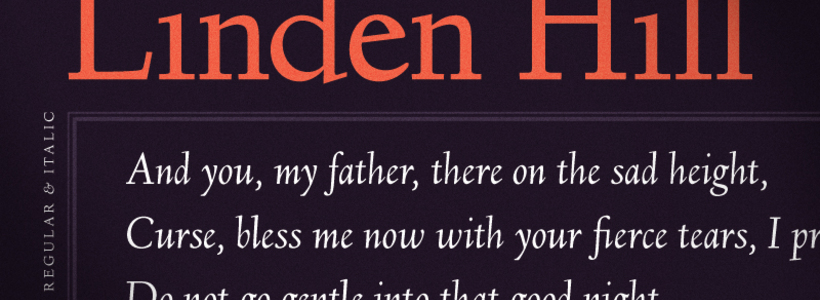
Crud Factory [Barry Schwartz]
Barry Schwartz (b. 1961) is a scientist who lives in St. Paul, MN. He grew up mostly in Kendall Park, NJ, and studied electrical engineering from 1984 until 1990 at Rutgers. He is a fervent and exemplary supporter of the idea of Open Source fonts and software. He runs Crud Factory. His fonts:
• BonvenoCF-Light (2006). A geometric OpenType format typeface for Latin scripts, having all the letters for Esperanto.
• Fanwood Text (2011, a Venetian old style typeface). This is a free version of Fairfield (1940-1947, Rudolf Ruzicka). For a commercial version, check Bitstream's Transitional 551.
• Goudy Bookletter 1911 (2008) is a revival of Goudy's Kennerley Old Style Roman from 1911.
• Goudy Old Style 14-point (2009).
• Juvelo (2009). A delicate roman serif face.
• Linden Hill (2010, OFL). A two-style (roman, italic) revival of Goudy's Deepdene.
• Prociono CF (2007). See also here.
• OFL Sorts Mill Goudy (2009). A revival of Goudy Oldstyle and Italic.
• KisStMTT (or: Sorts Mill Kis) (2010). Based a bit loosely on the early-20th-century revival of Jenson / Kis drawn by Sol Hess for Lanston Monotype.
• He adapted some glyphs of Gentium for better display with Adobe Reader, and called the new type family Temporarium (2007-2008).
• Valley (2009). A take on Walbaum.